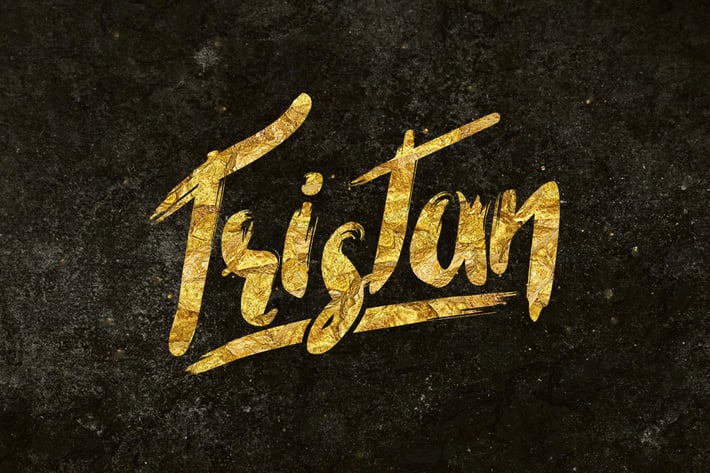
Tristan Brush Font
Give your designs an authentic brush handcrafted feel. “Tristan Brush Font” is perfectly suited to stationery, logos and much more.